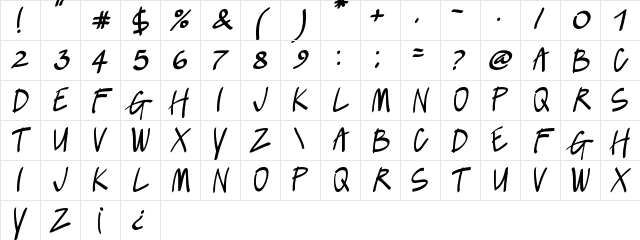
Lush Regular
Design Context for Lush
Lush is a composed and adaptable typeface that performs quietly and consistently across a wide range of design contexts.
Pro Tip: Use Lush in both headline and body roles to test its range before committing to a single application.